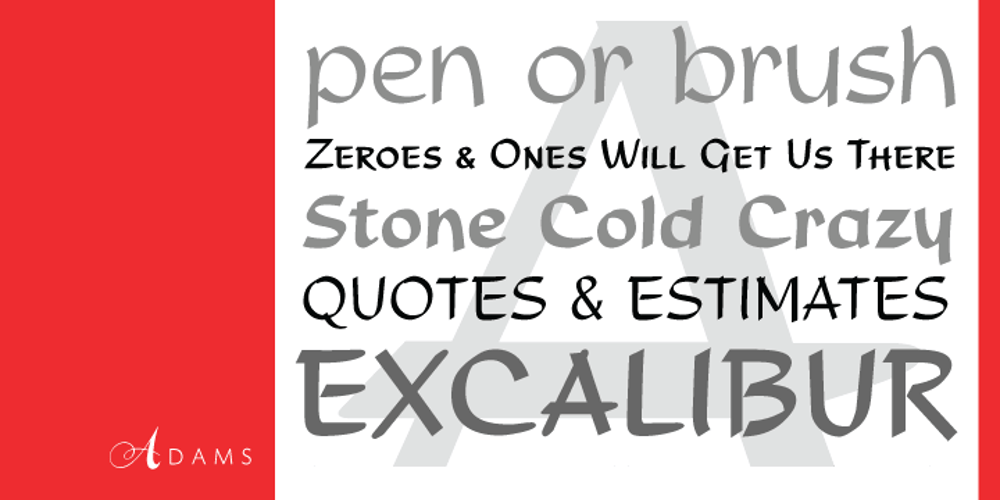
Adams
Adams font
Adams Font Family was designed by Hans van Maanen, Dolf Overbeek and published by Canada Type. Adams contains 4 styles and family package options. Adams is a revival and major expansion of Dolf Overbeek’s Studio typeface and Flambard, its bold counterpart, originally published by the Amsterdam Type Foundry in 1946 and 1954. This digital version adds small caps and a new light weight. Adams is a simple upright, flat brush script, with stroke angles carefully designed to give the same color in all sizes. It is reminiscent of the sign lettering commonly found in the 1930s and 1940s. The Adams fonts are available in all popular font formats, and the character sets cover a wide range of codepages, including Central and Eastern European languages, Esperanto, Turkish, Baltic, Celtic/Welsh.